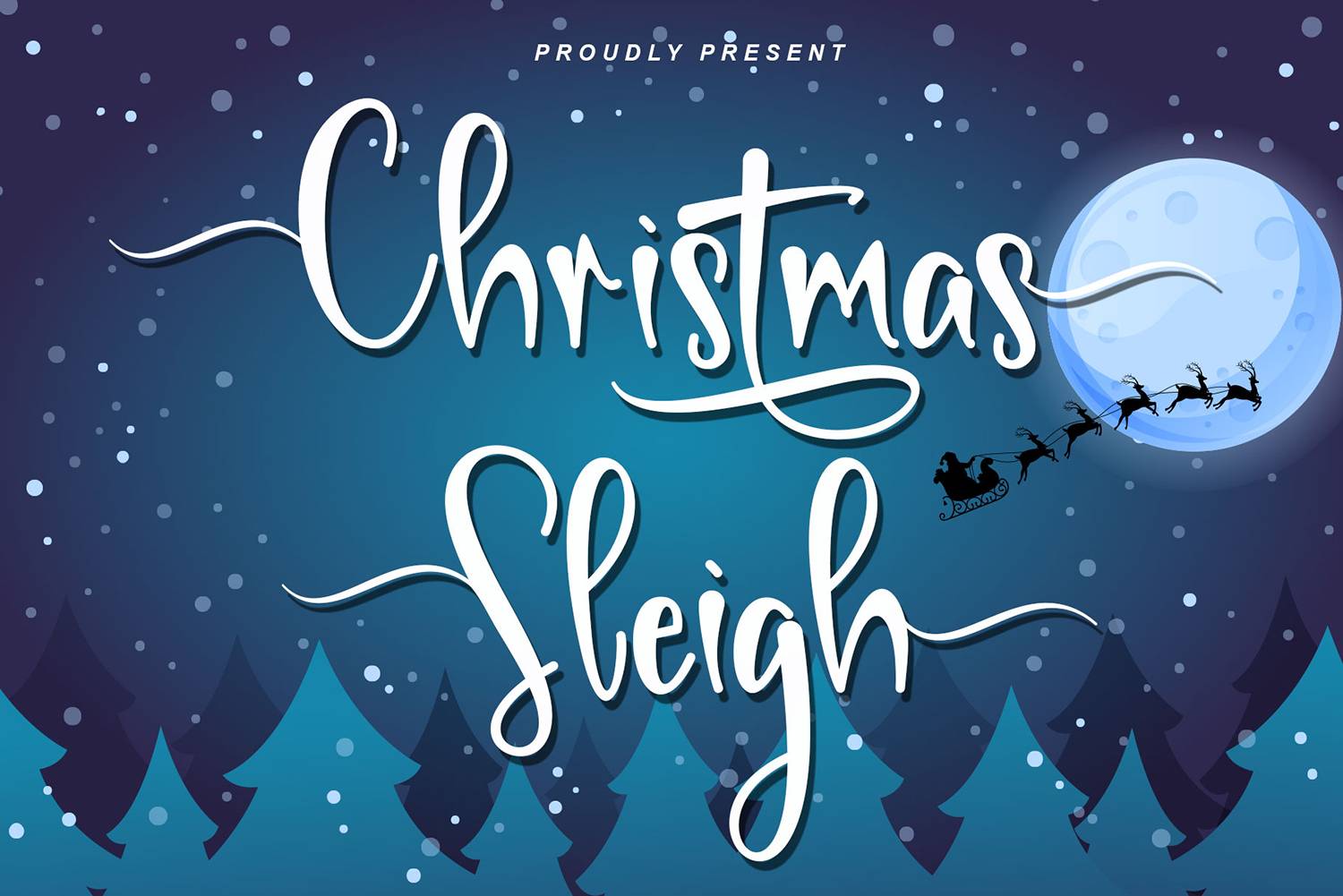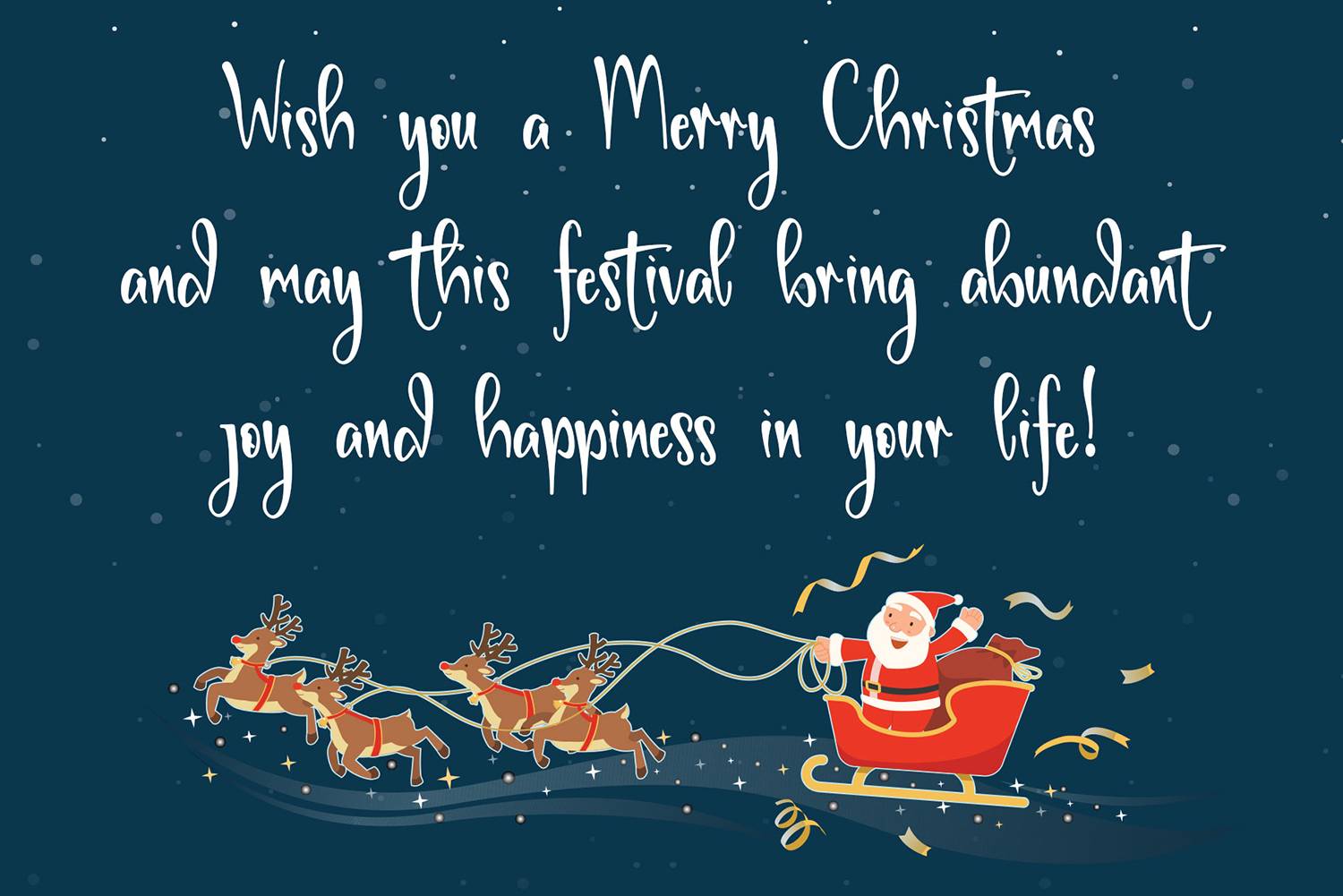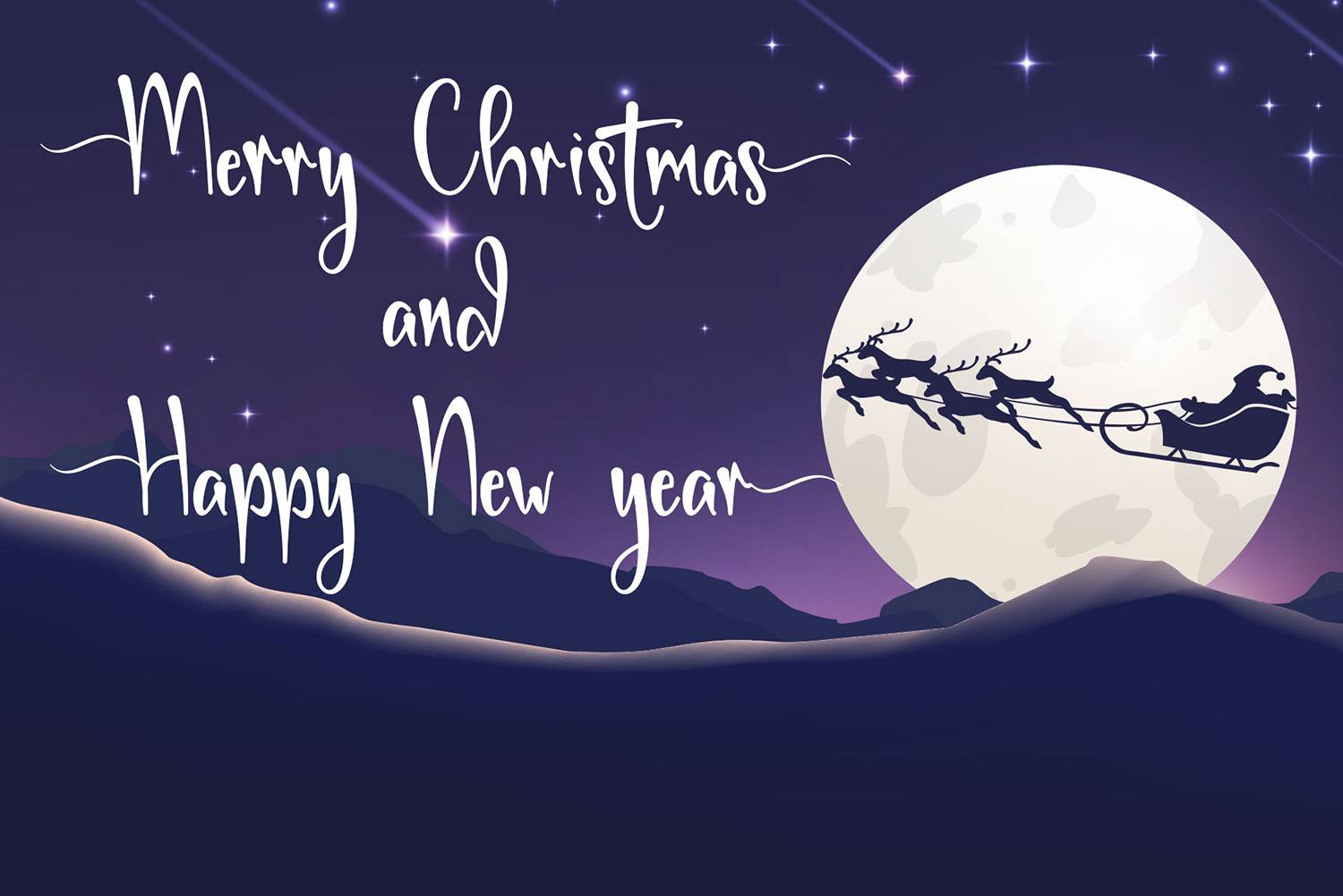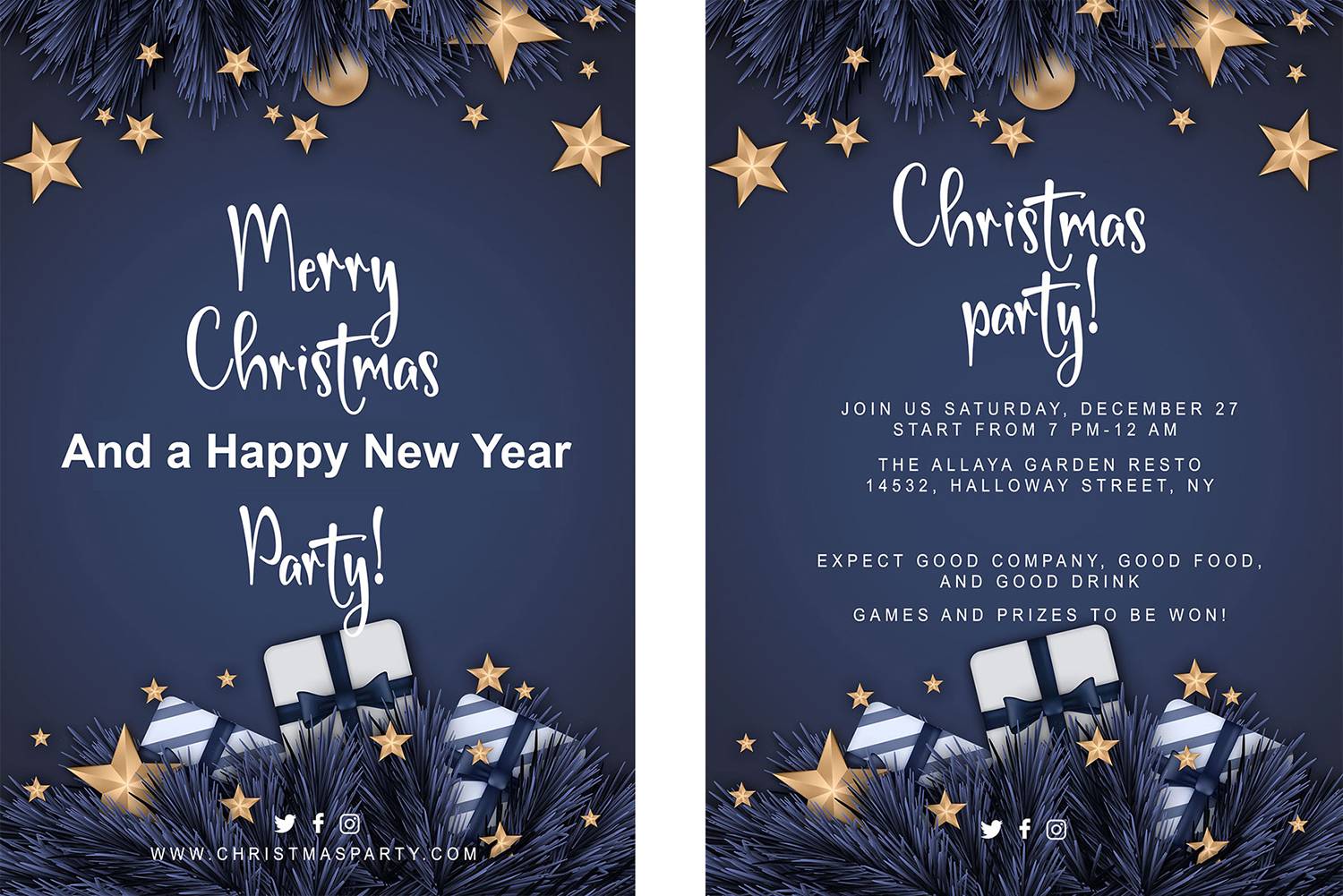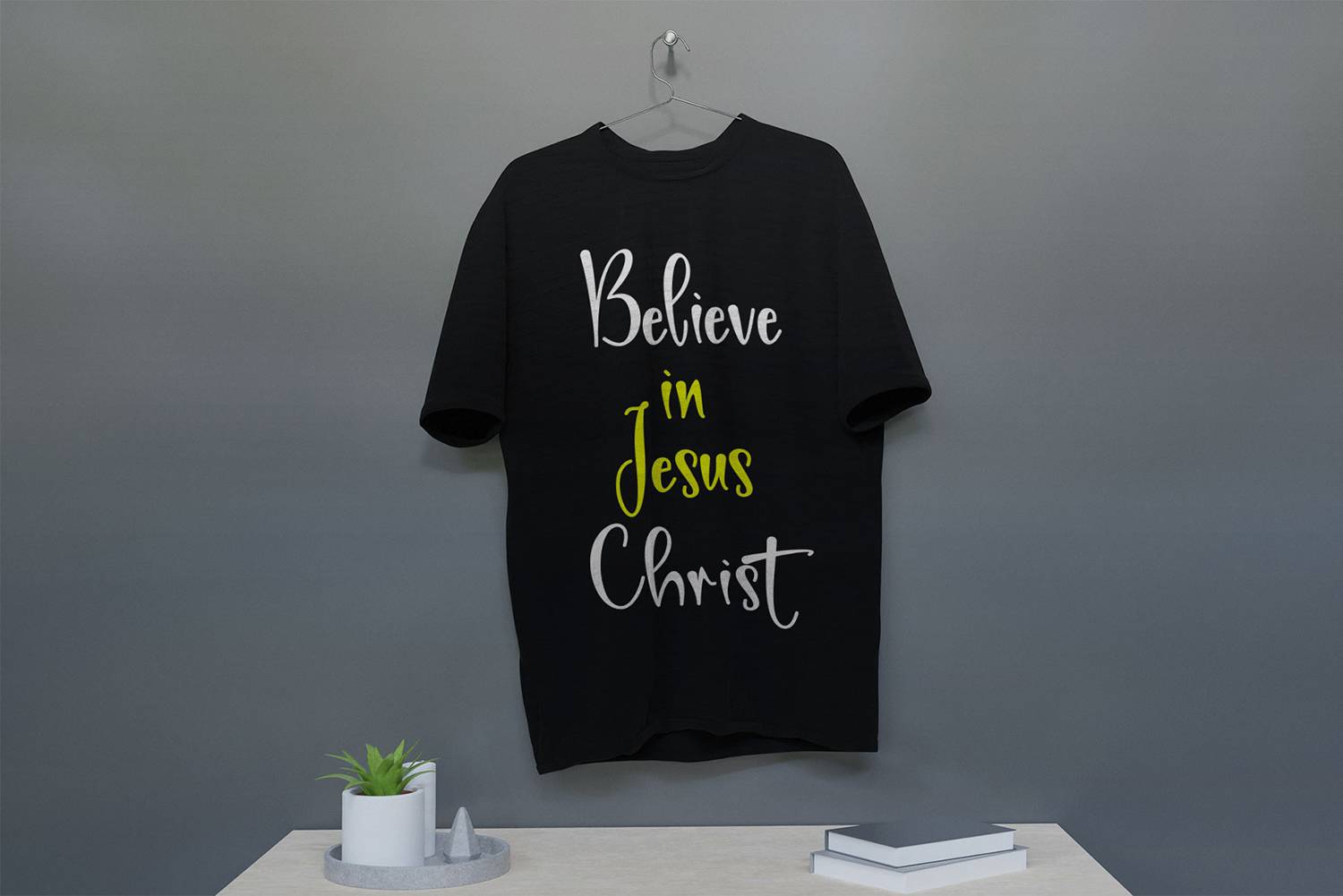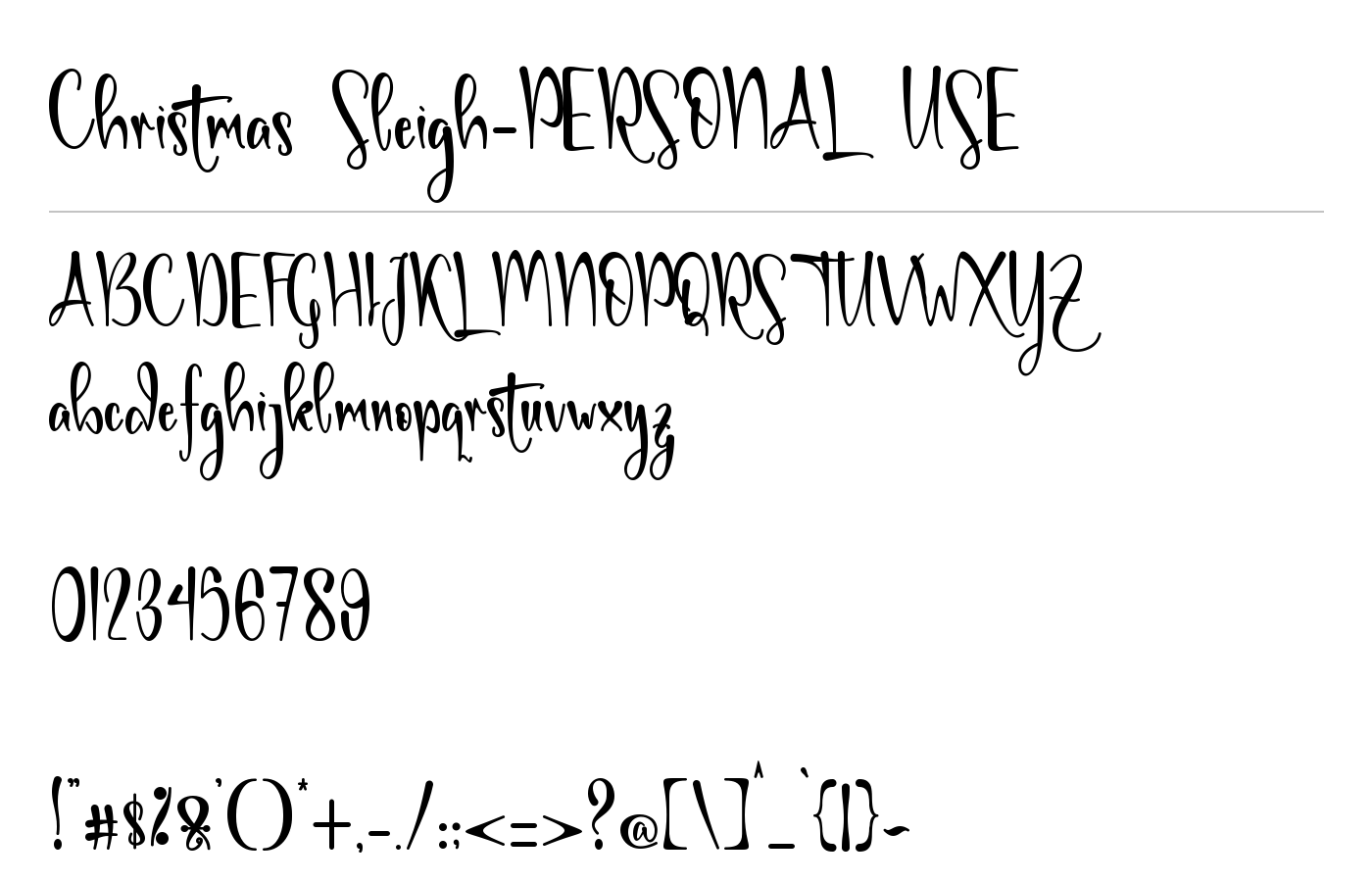
Christmas Sleigh is a playful and whimsical handwritten font that features tall, narrow characters with an informal, flowing style. Its uneven, charming strokes convey a friendly, festive mood, making it perfect for holiday cards, children's projects, and casual branding that seeks a personal, joyful touch. This font works best in headlines and decorative text where a lively, spirited atmosphere is desired.
Christmas Sleigh Font
About Christmas Sleigh Font
| Font family | Christmas Sleigh Font |
| Designer | Arkrist Letter |